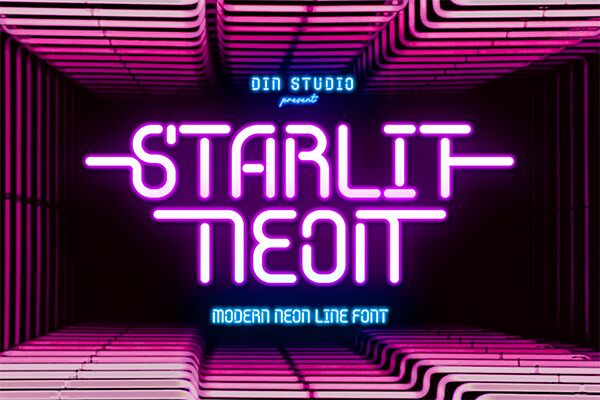
Starlit Neon captivates with its vibrant, futuristic design that evokes the electrifying essence of neon lights. The bold, flowing lines create a striking visual appeal, making this font both eye-catching and dynamic. Its condensed structure intensifies the energy of each character, perfect for designs that demand attention.
Imagine Starlit Neon illuminating everything from posters for nightlife events to branding materials aimed at youthful audiences. Its unique style effortlessly communicates a sense of contemporary flair, making it ideal for digital projects and immersive environments alike. Whether used in advertising or as part of modern web design, this font’s dazzling presence guarantees it will stand out in any context where creativity and innovation shine bright.